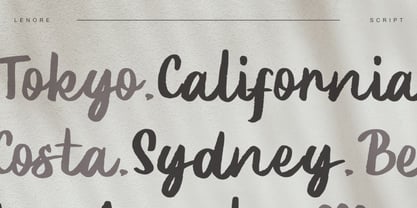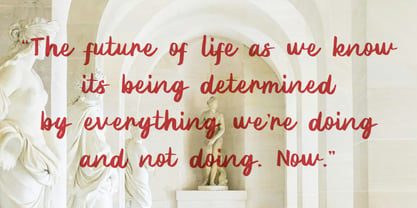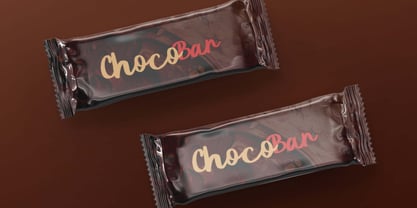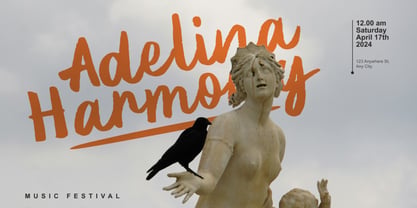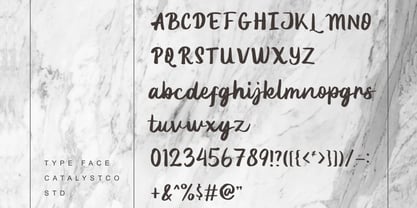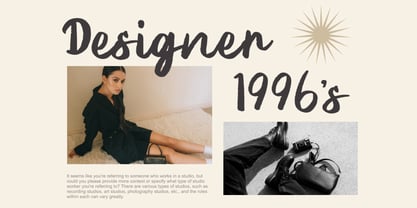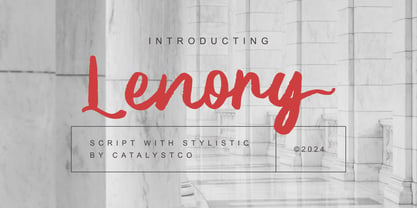
Lenory
The Lenory Font Family was designed by and published by Catalystco Std. Lenory contains 1 styles. More about this family
Lenory is an expressive handwritten script font that captures the energy of natural brush strokes and casual movement. Its bold yet flowing letterforms evoke a sense of confidence and warmth, perfect for headlines, branding, posters, and creative projects. With a balance of texture and rhythm, Lenory adds an authentic, handcrafted touch to every design. Featuring uppercase and lowercase characters, numerals, and punctuation, Lenory offers stylistic alternatives for extra variation. This script font shines in personal signatures, lifestyle branding, and editorial layouts that need a human, artistic feel with modern personality.
Lenory